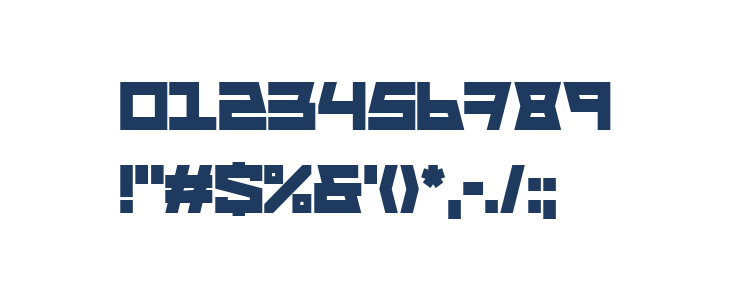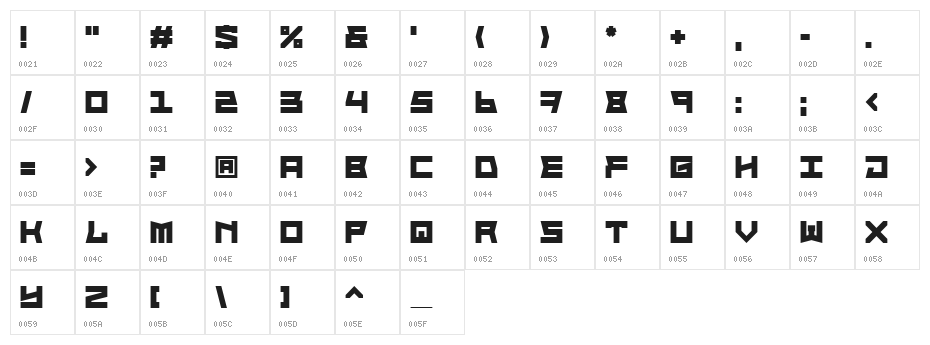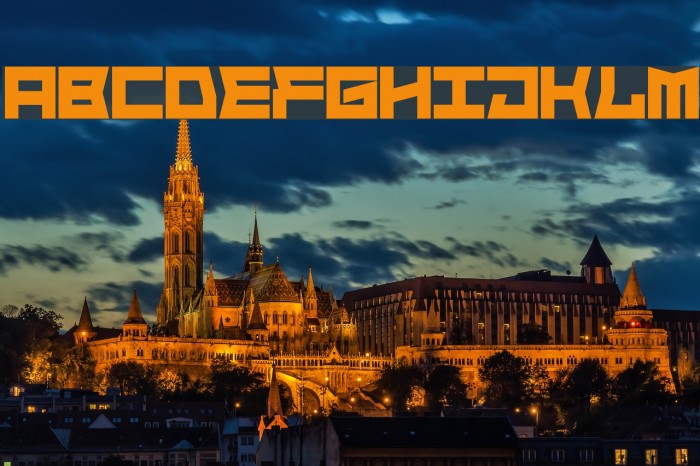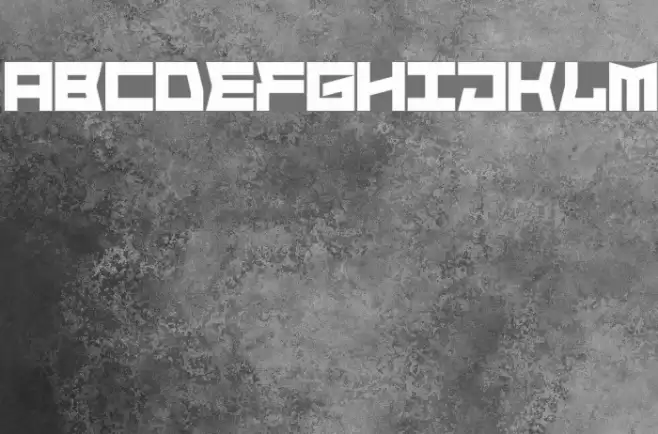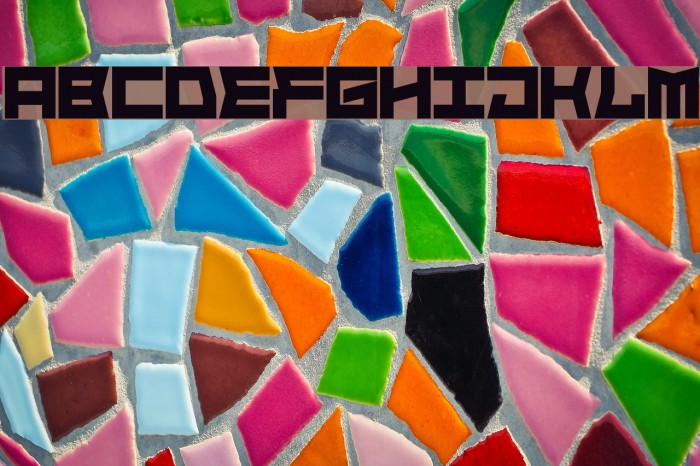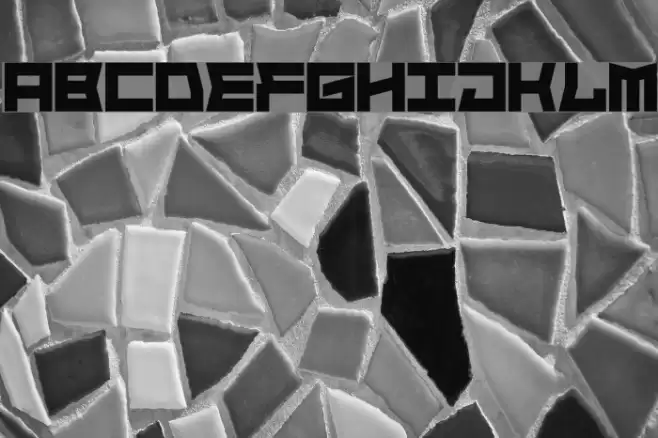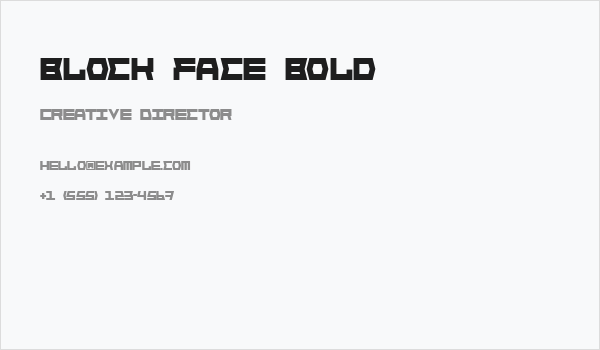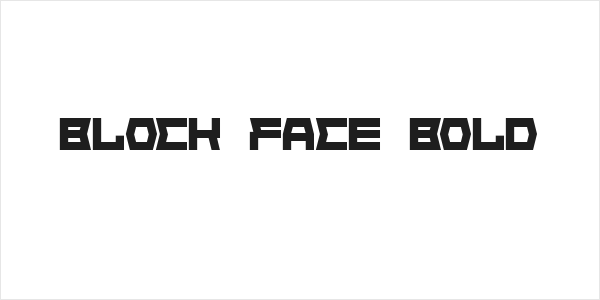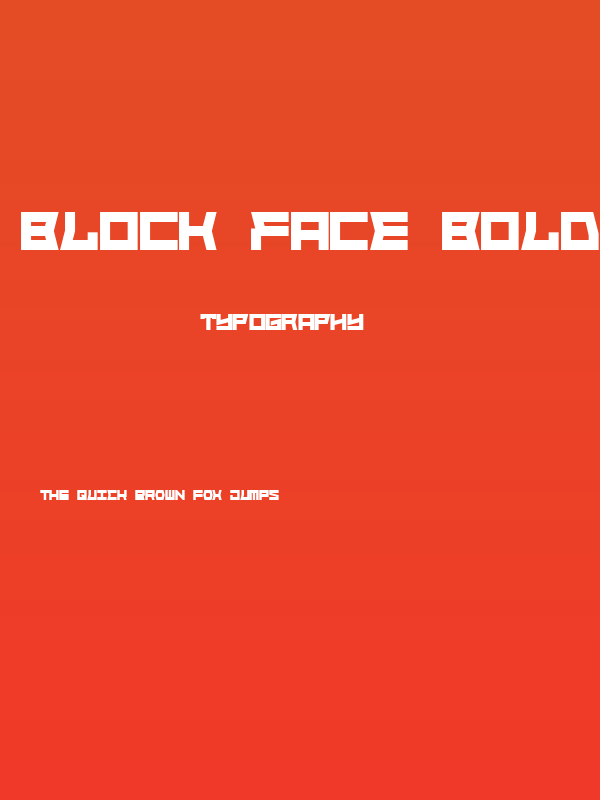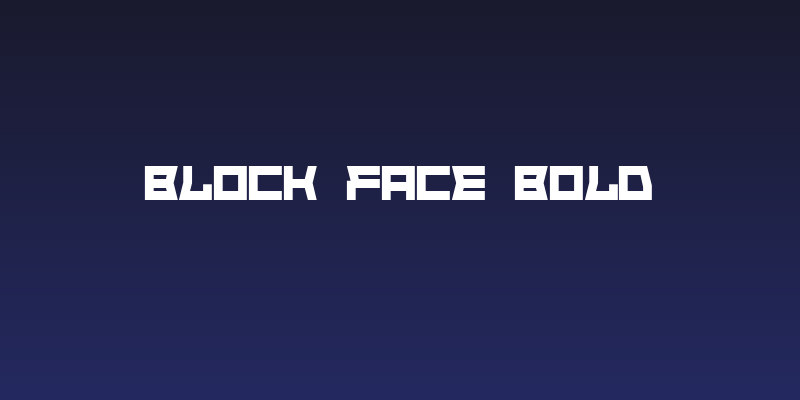
Block Face Bold Font
Block Face Bold Description
This font exhibits a bold, geometric style with a strong, blocky appearance. Each character is crafted with sharp angles and straight lines, creating a futuristic and industrial aesthetic. The uppercase and lowercase letters maintain a consistent height, contributing to a uniform look. The numerals and special characters follow the same design principles, ensuring cohesion across all glyphs. The font's heavy weight and solid structure make it highly visible and impactful, ideal for catching attention. Its unique design is reminiscent of digital or sci-fi themes, making it suitable for modern and tech-oriented projects.
| Proposed Projects | Ideal for tech-themed designs, video game titles, posters, and branding that requires a modern and impactful look. |